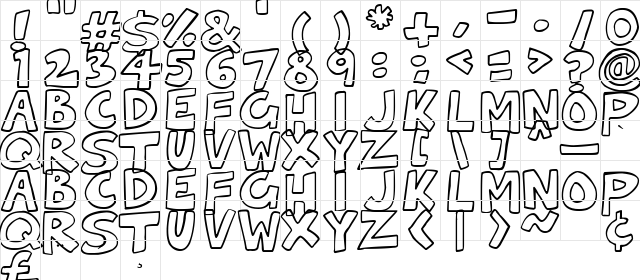
Hollow Cartoonlings Regular
Design Context for Hollow Cartoonlings Typeface
Hollow Cartoonlings trades formality for fun, with bouncy, characterful letterforms that bring warmth and energy to any project.
Great for children's books, toy packaging, family event branding, and casual consumer-facing design.
Font Pairing: Pairs well with a rounded or humanist sans for body copy, maintaining the friendly tone without relying on Hollow Cartoonlings to carry extended reading.
Pro Tip: Avoid using Hollow Cartoonlings for long passages of text — it works best for headlines, labels, and short calls to action.